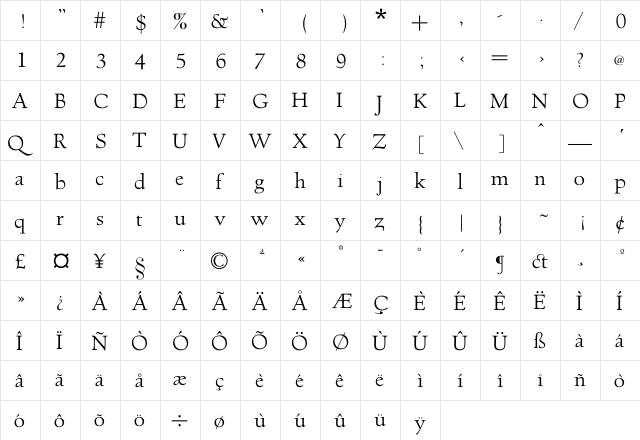
GoudyVillage L Font Preview
GoudyVillage L
Design Context for GoudyVillage Typeface
GoudyVillage is a composed and adaptable typeface that performs quietly and consistently across a wide range of design contexts.